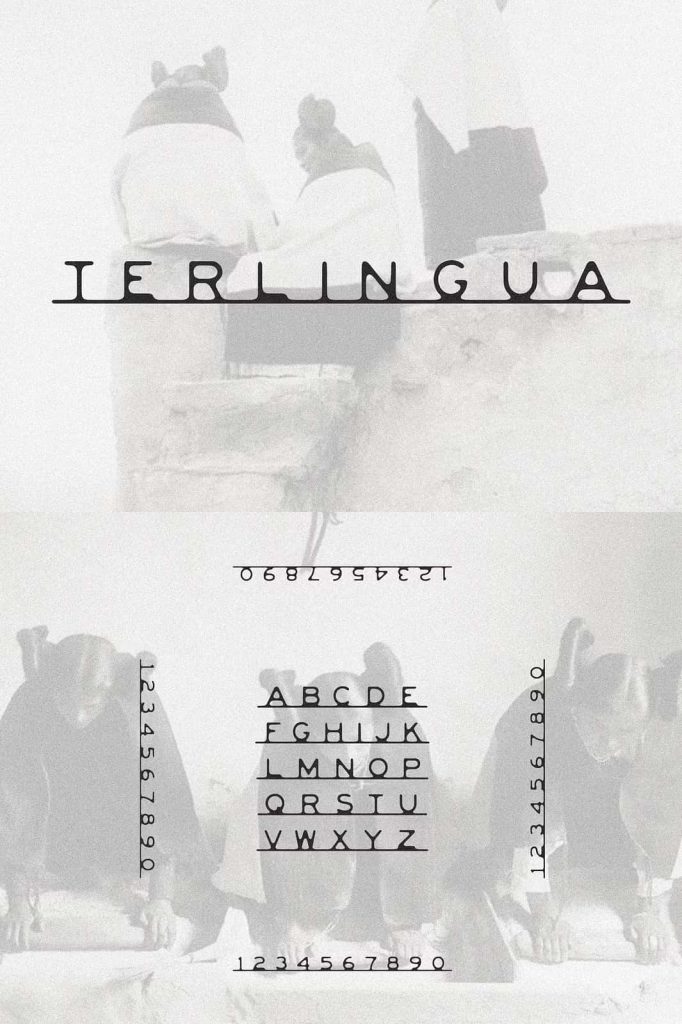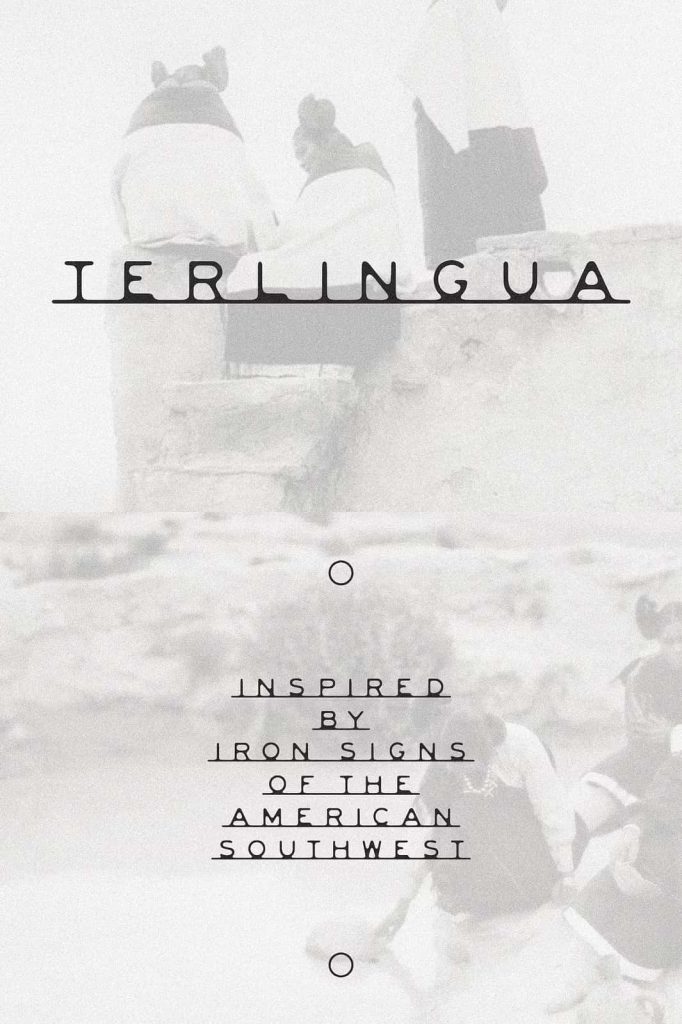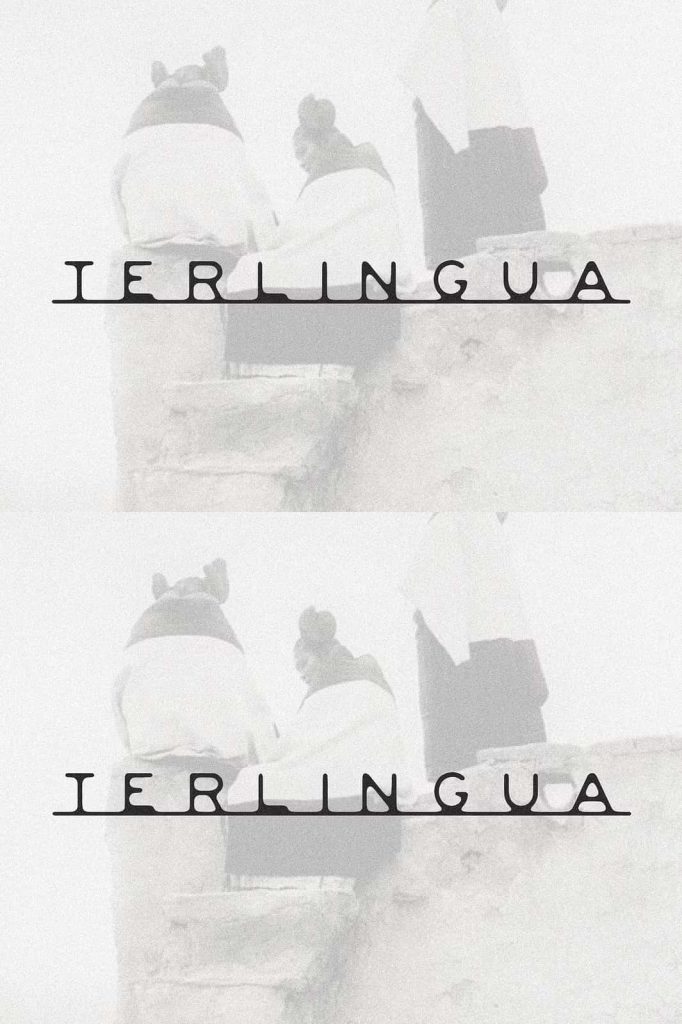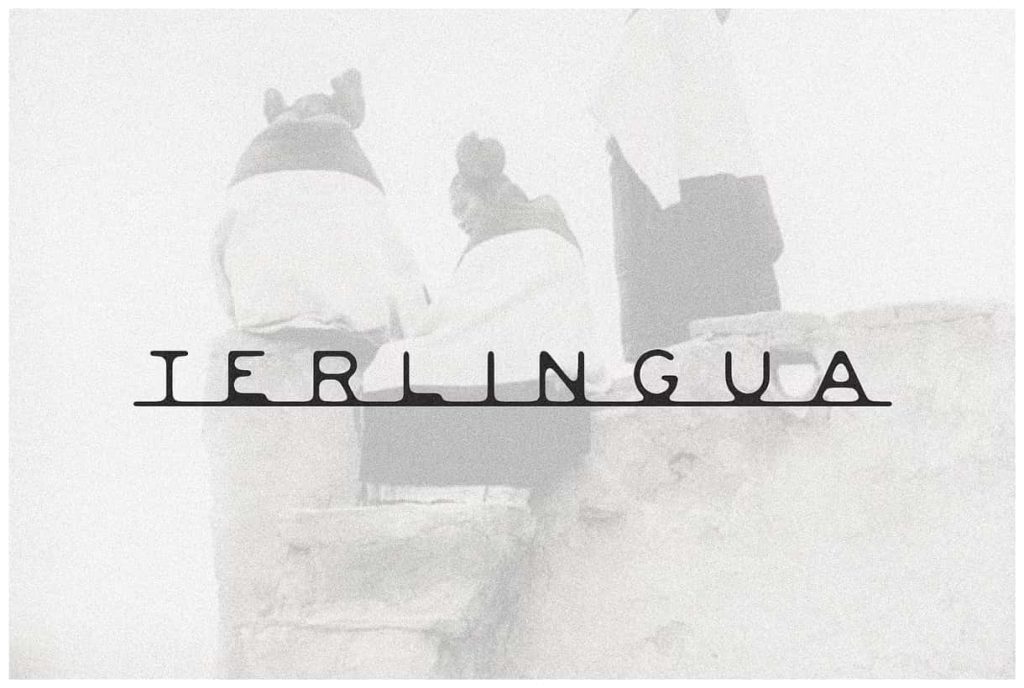
TerlingualeastedMay 22, 2025Fonts Terlingua is a handcrafted typeface that was designed after old iron welded signs often found in the American Southwest. Download